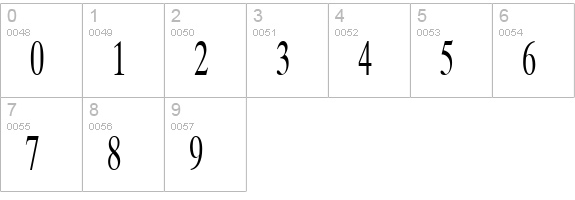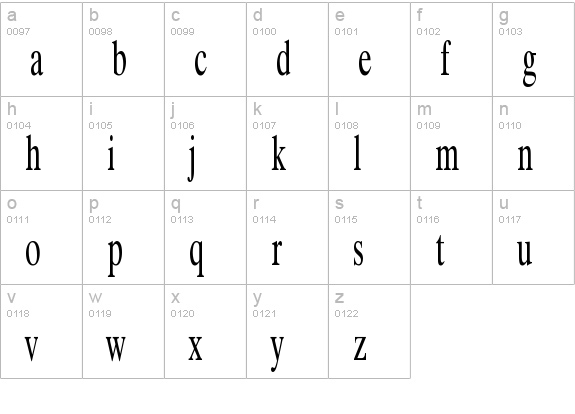
Duke Thin Normal Font Details
Duke Thin Normal is a delicate, low-contrast variant in the Duke typeface family \xE2\x80\x94 well suited to fashion editorial, minimal branding, and high-contrast display.
The Duke Thin Normal font is a sleek and modern typeface that exudes elegance and sophistication. With its slim and refined letterforms, this font is perfect for creating a clean and professional look in your designs. Whether you're working on branding, editorial projects, or web design, Duke Thin Normal will add a touch of class to your work. What's even better is that Duke Thin Normal is available for free download at FontsMarket.com. You can easily access this stylish font and incorporate it into your projects without any cost. Don't miss out on the opportunity to enhance your designs with the timeless appeal of Duke Thin Normal font. Download it now and elevate your work to the next level!